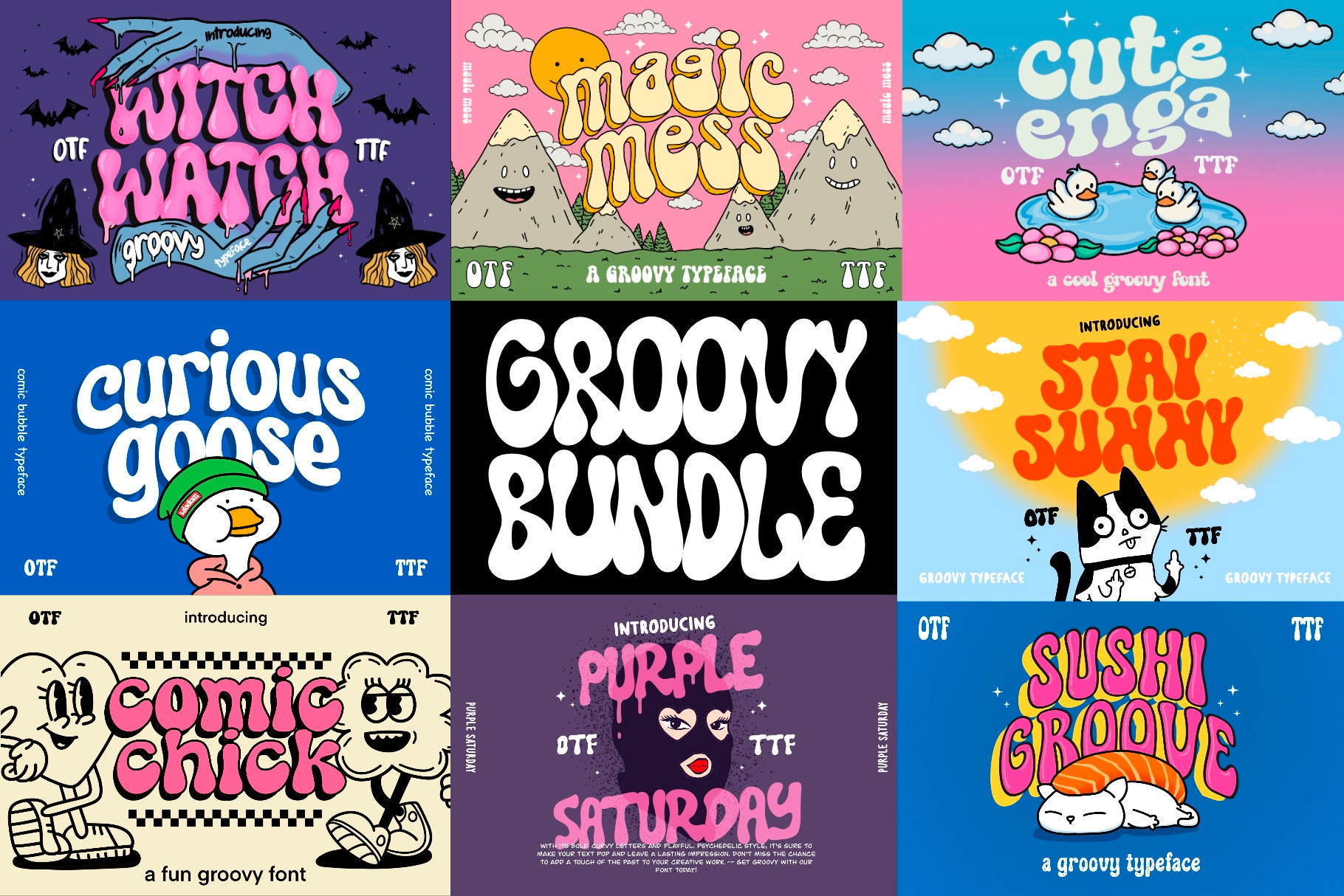
Bundle Groovy Font - Groovy Font
This FONT BUNDLE contains Groovy Typeface Family that seamlessly blends retro charm. This typeface available in SVG format, compatible with advanced tools such as Cricut and Glowforge, and for use in Procreate. Groovy Style Font is ideal for eye-catching branding, poster designs, and any project demanding a unique, dynamic typographic style that stands out.